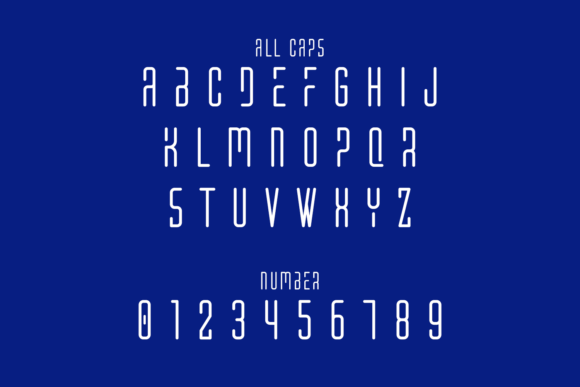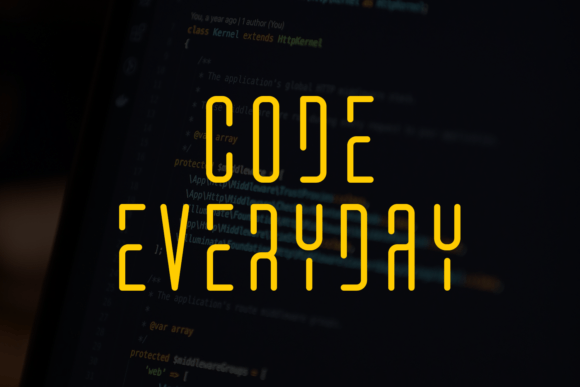
Introduction to Purfar Font
As a designer, you know that sometimes it’s the smallest details that can make the biggest impact. Remember the moment when you stumbled upon that perfect image for your project, only to have the background distract from your message? That’s when you wish you had a design resource like a versatile and unique font to elevate your creation. Enter the Purfar Font, a cool and intricate display font that’s about to become your new go-to asset.
With its high quality design and transparent background, the Purfar Font is the perfect addition to any creative project. Whether you’re working on a bold graphic or a delicate illustration, this font has the potential to enhance any creation and make it stand out. And the best part? It’s available for a free download, making it an invaluable resource for designers of all levels.
What sets the Purfar Font apart is its unique blend of style and sophistication, making it an essential tool for any designer looking to take their work to the next level. With its high level of detail and versatility, this font is sure to be a valuable asset in your font library.
Key Features of Purfar Font
- Purfar Font is a high-quality design resource ideal for creative projects.
- It features a transparent background, allowing for seamless integration into various design elements.
- Purfar Font is designed to be highly legible, making it perfect for use in headings, titles, and body text.
- Its unique, modern design makes it an excellent choice for creative projects, including digital art, graphic design, and web design.
Honest Review: Purfar Font
I recently had the chance to work with the Purfar Font, and I’m excited to share my thoughts with you.
The Purfar Font is a fantastic design resource that offers a unique and elegant style, perfect for a variety of creative projects. I love the subtle flair it adds to text, making it stand out without being too overpowering.
- ✨ High-quality glyphs and characters that are crisp and clear.
- ✨ Elegant and sophisticated design that’s perfect for formal and creative projects.
- ✨ Transparent background option, making it easy to use on any design background.
However, I did encounter a few limitations while working with the Purfar Font:
- ⚠️ Limited language support, which may be a problem for projects that require multilingual text.
- ⚠️ Some users may find the font’s weight a bit too light, especially for headings and titles.
Tips for Getting the Most Out of Purfar Font
Use Purfar Font for creative projects that require a unique and elegant touch. Experiment with different font sizes, styles, and colors to add depth and visual interest to your design. You can also use it in combination with other design elements, such as images and shapes, to create a cohesive and eye-catching design.
Common Use Cases for Purfar Font
Purfar Font is ideal for use in brochures, flyers, and posters, as well as for web design and social media graphics. Its high-quality design and transparent background make it perfect for use in creative projects where a professional and elegant look is required.